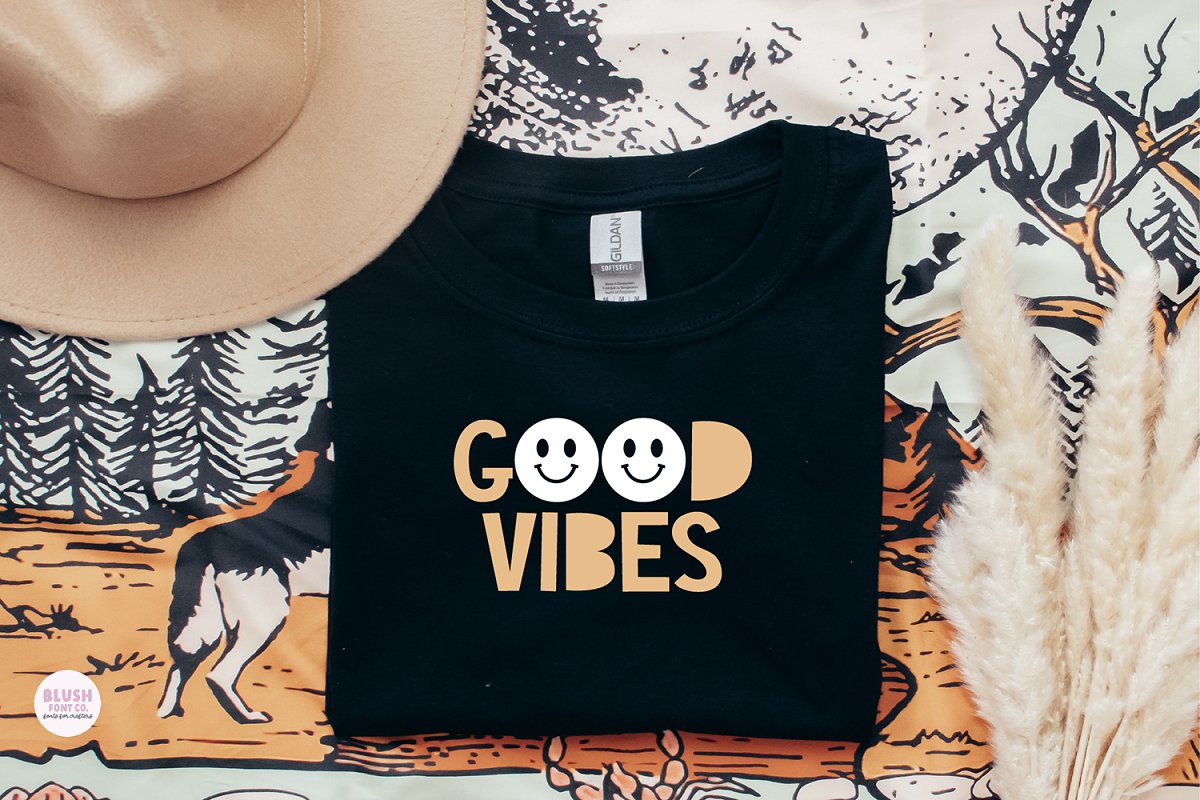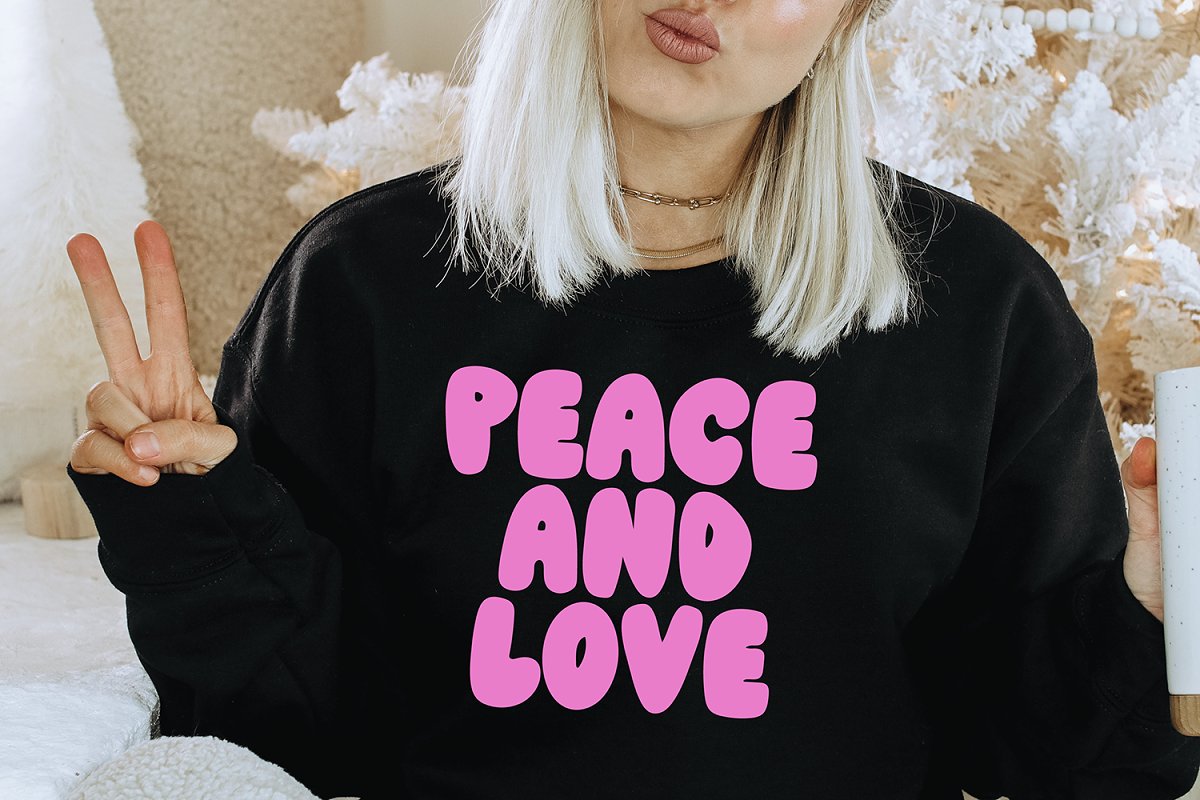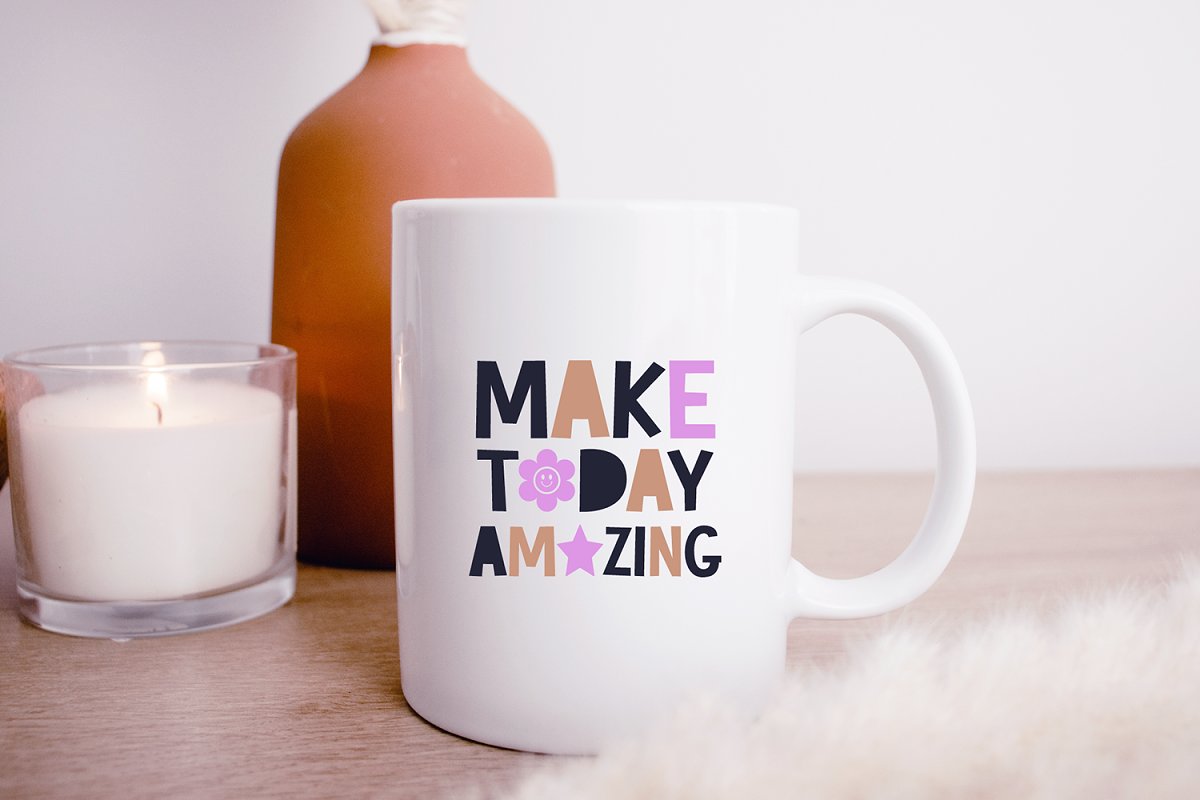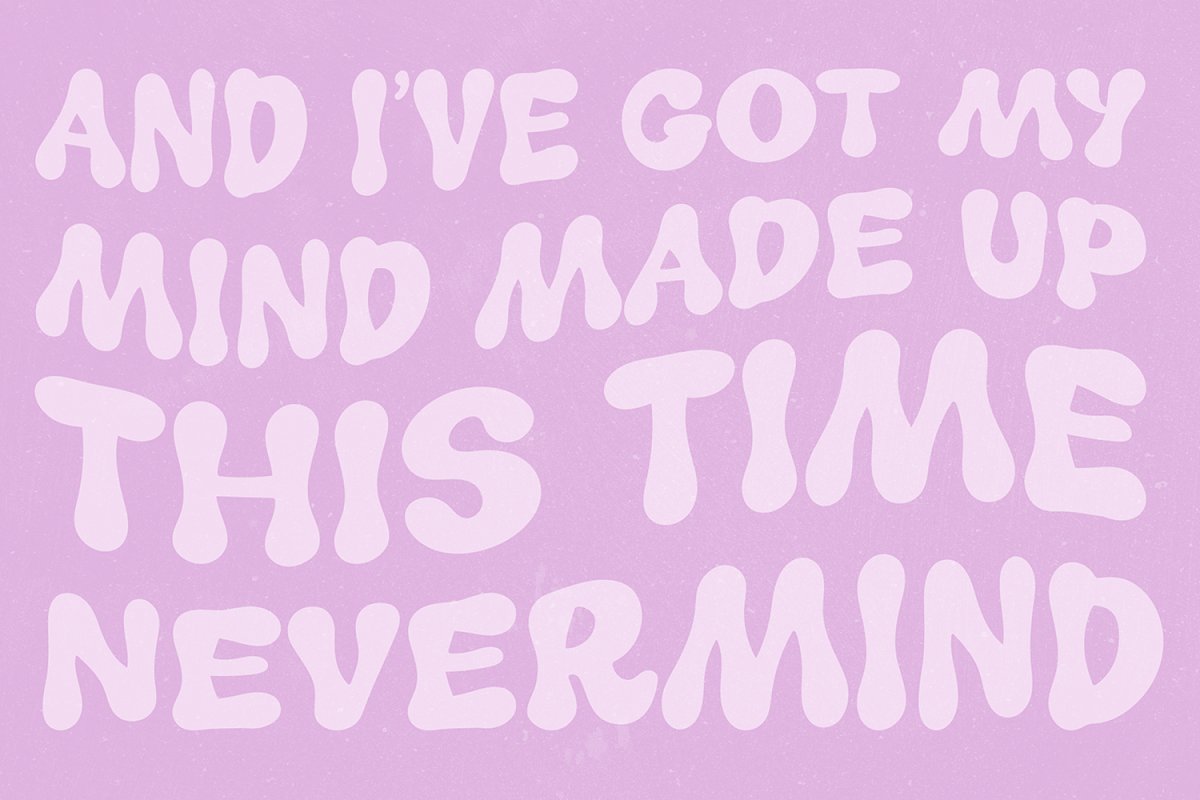
About the GROOVY DISPLAY Retro Bundle Font
Groovy Display Font Bundle VOL 2 – Retro Font Bundle8 fonts included!This font bundle is full of style! These are perfect for procreate, t-shirt design, birthday parties, procreate, and more!These fonts come in a , zip file that includes an INSTALLABLE , otf file for EACH font, You will need to unzip the folder, and install the fonts individually to your computer